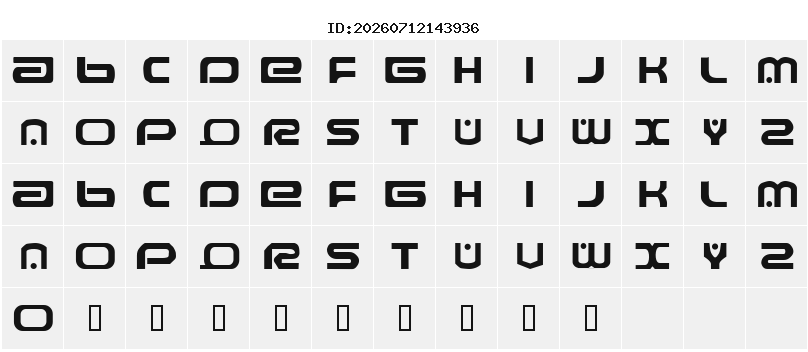
Raveflire Preview
• Font Name: Raveflire
• Full Font Name: Raveflire
• PostScript Name: Raveflire
About Raveflire.ttf
Raveflire.ttf is a modern, elegant sans-serif font designed for ultimate readability and visual harmony. Perfect for branding, headlines, web design, and print materials.